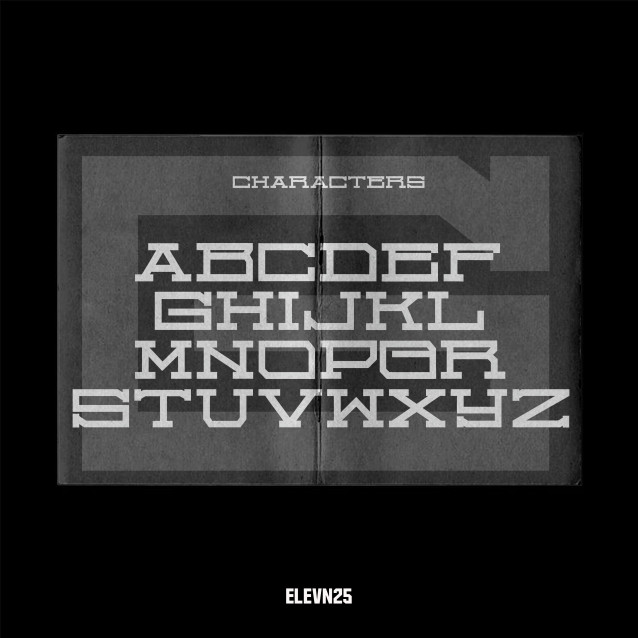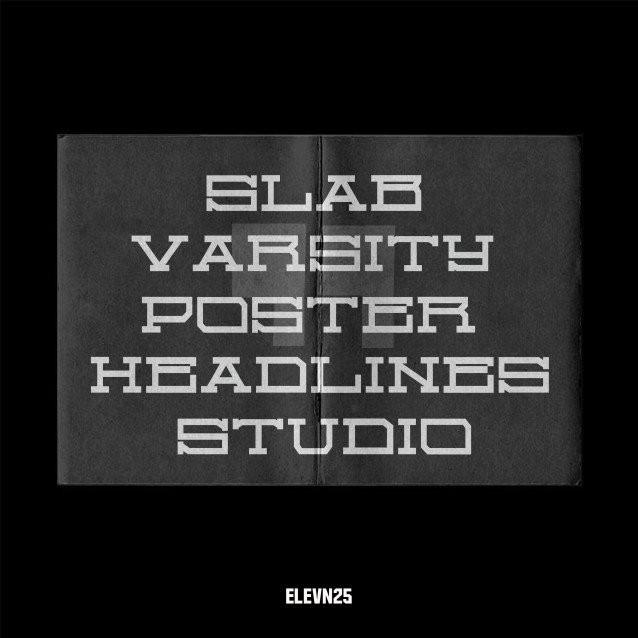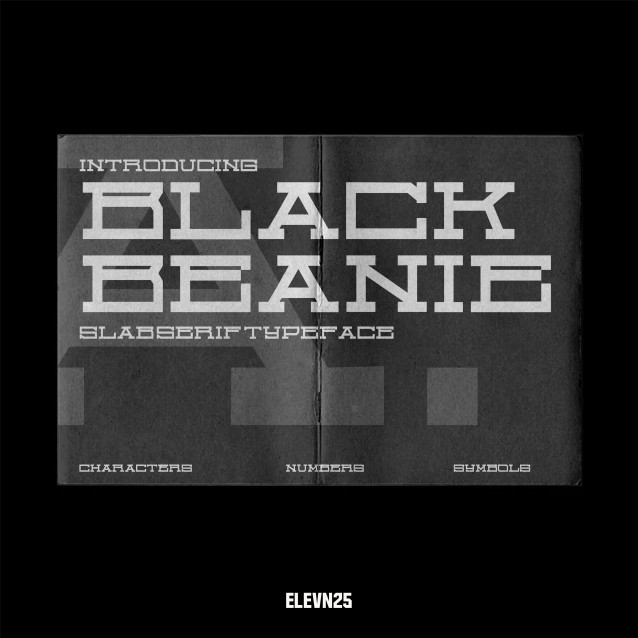
Introducing Black Beanie , a display slab serif typeface , developed with a vintage personality , black beanie stands out with it’s short & wide form , taking up space in grid systems.
BLACK BEANIE Font